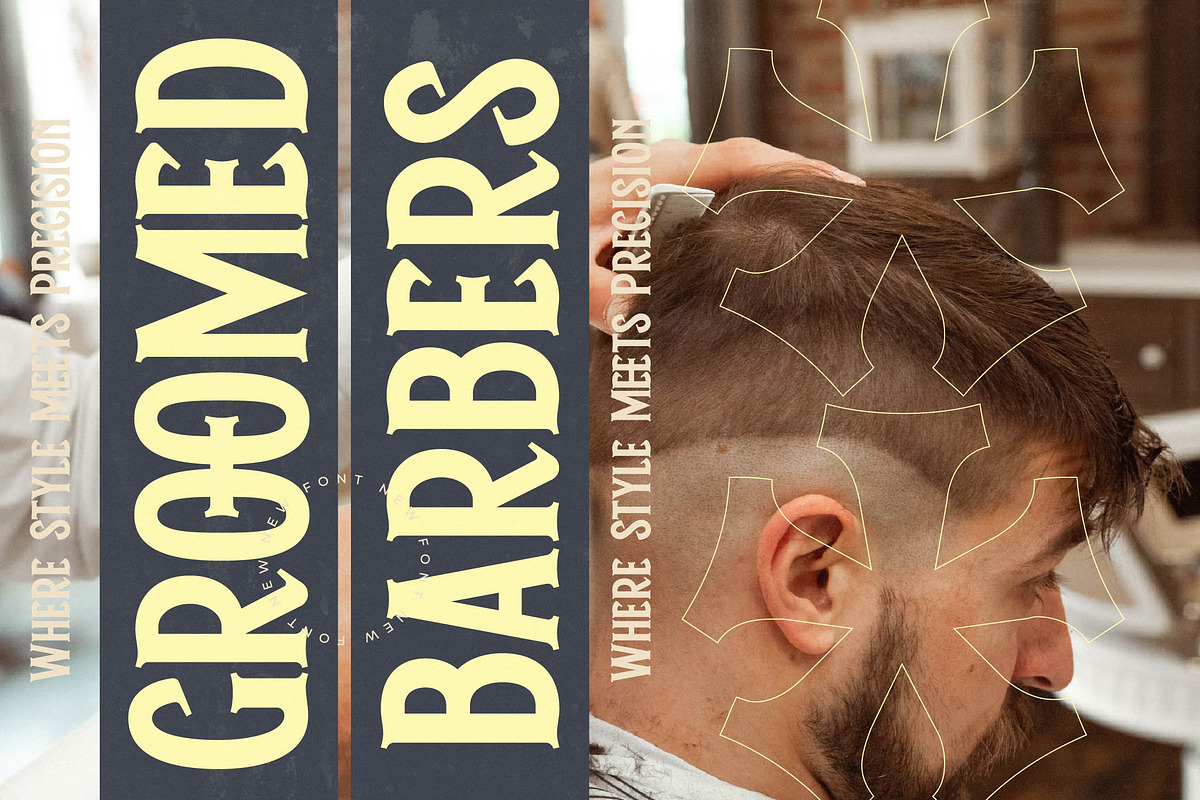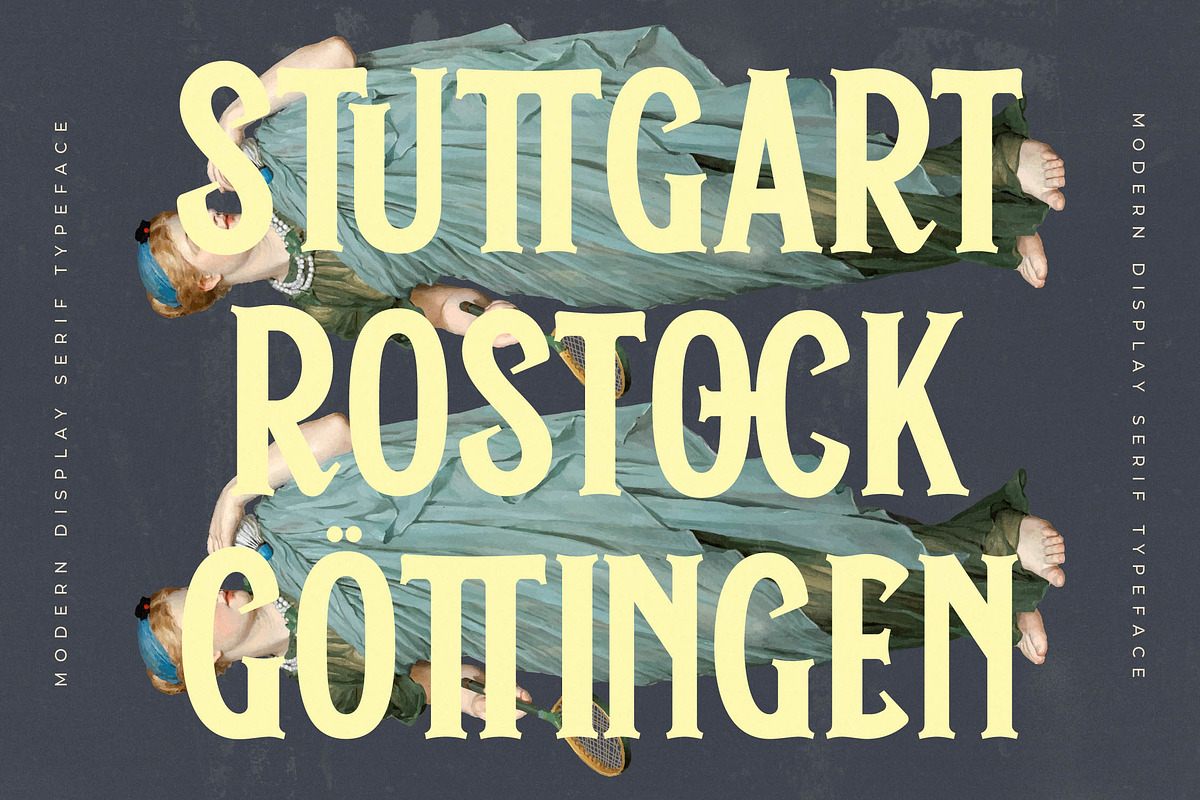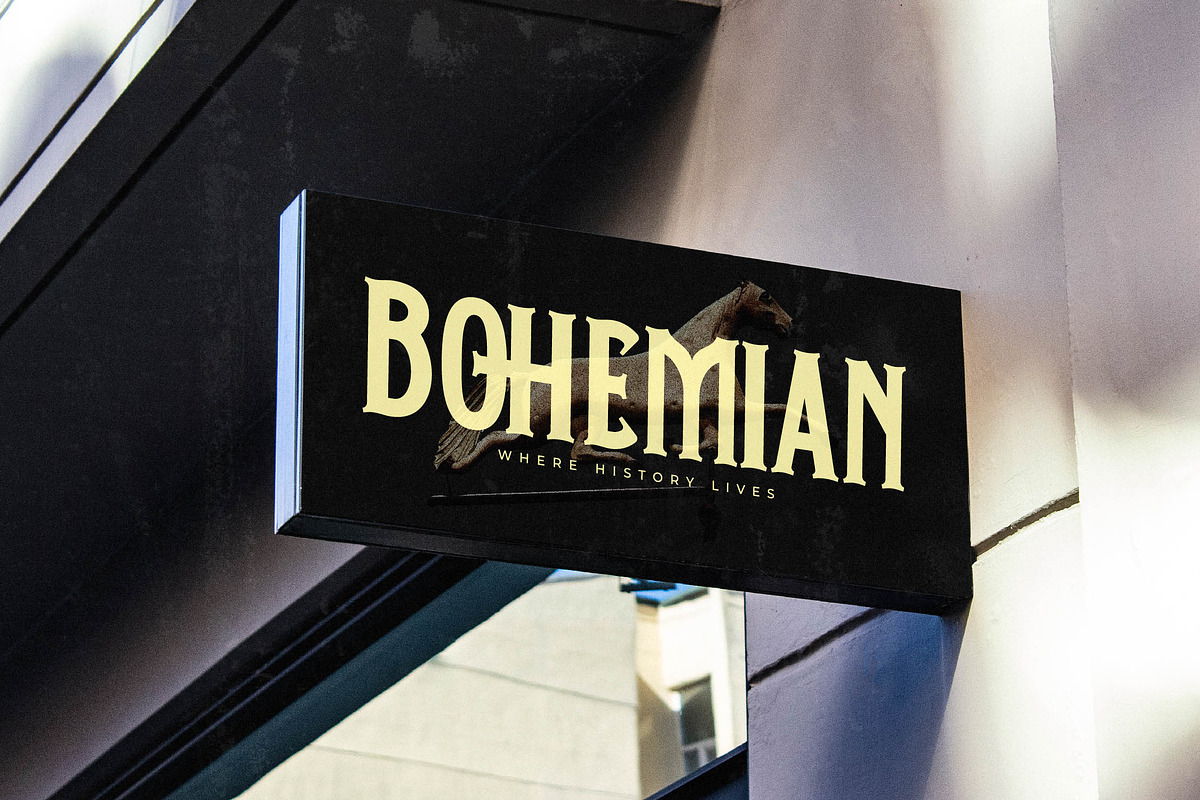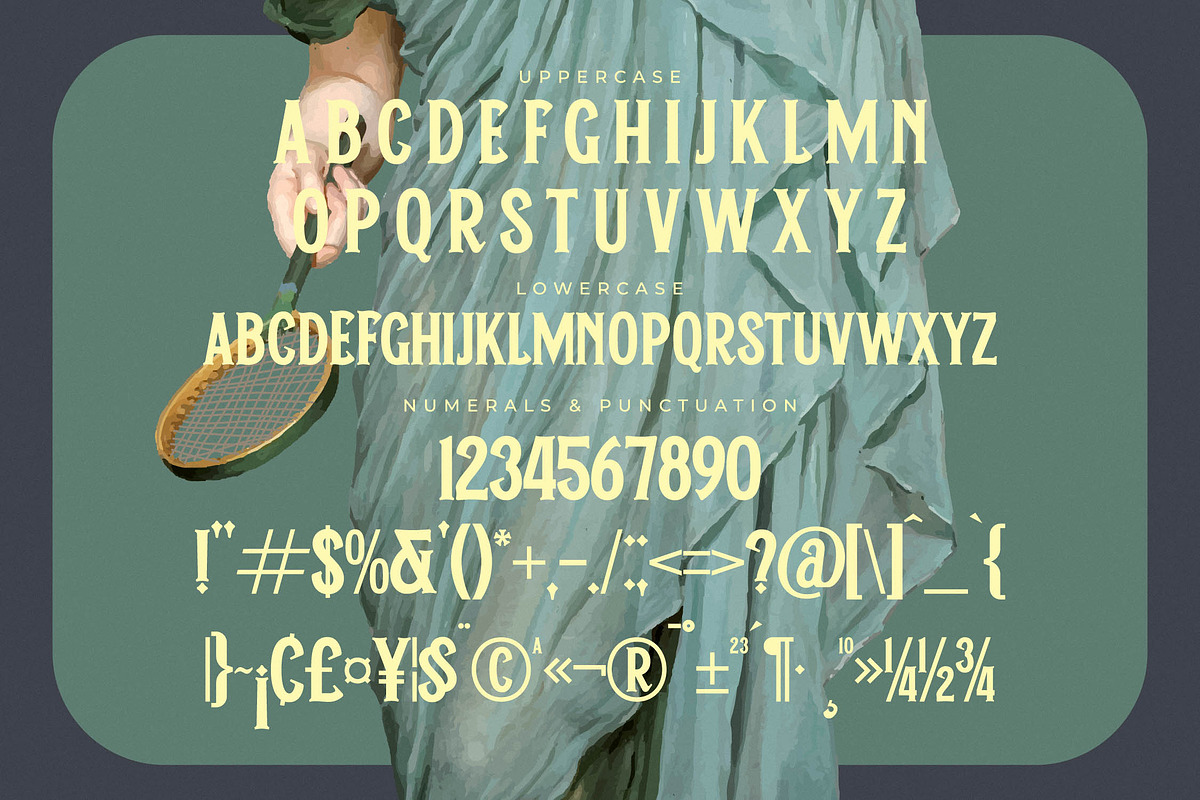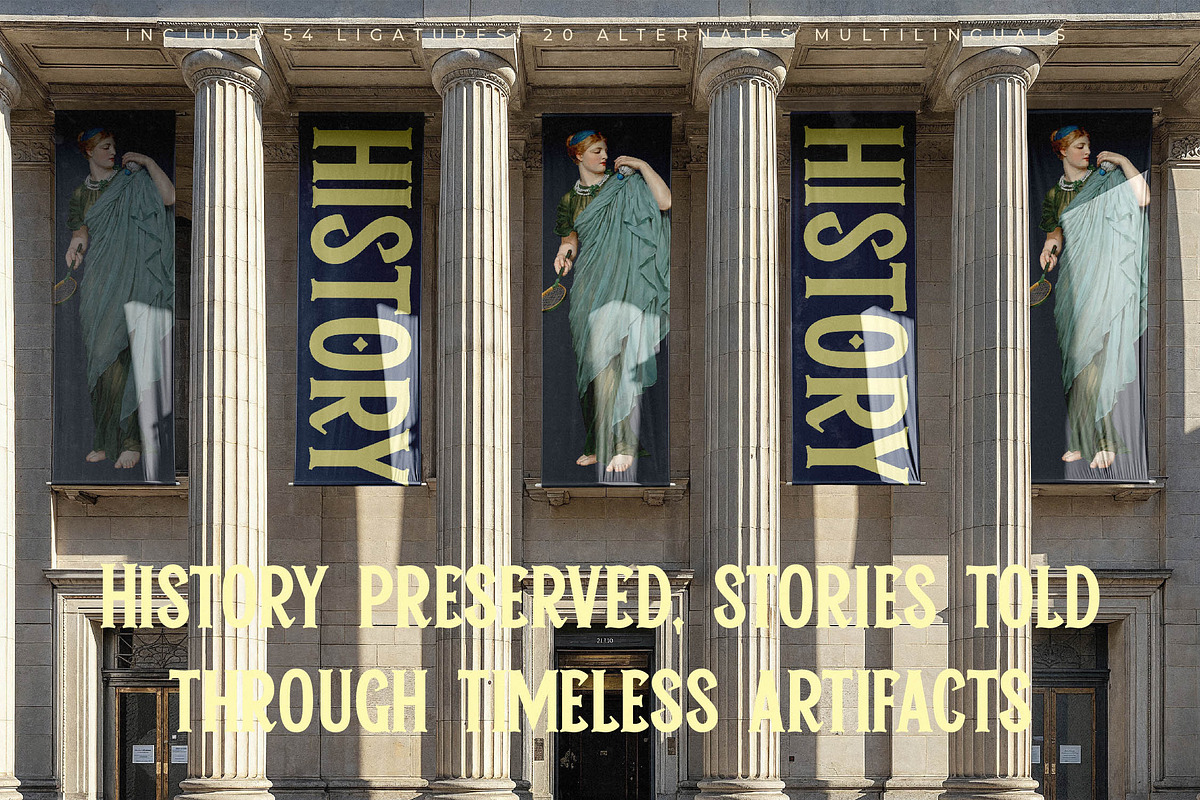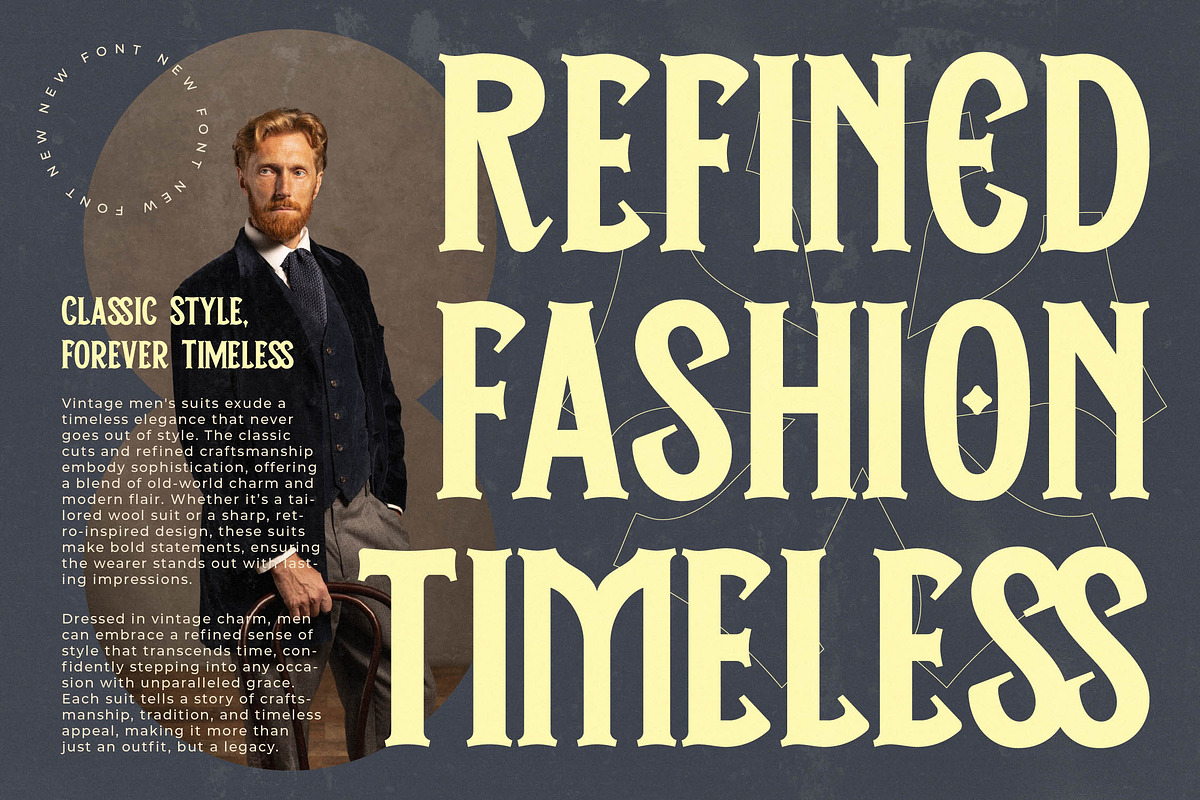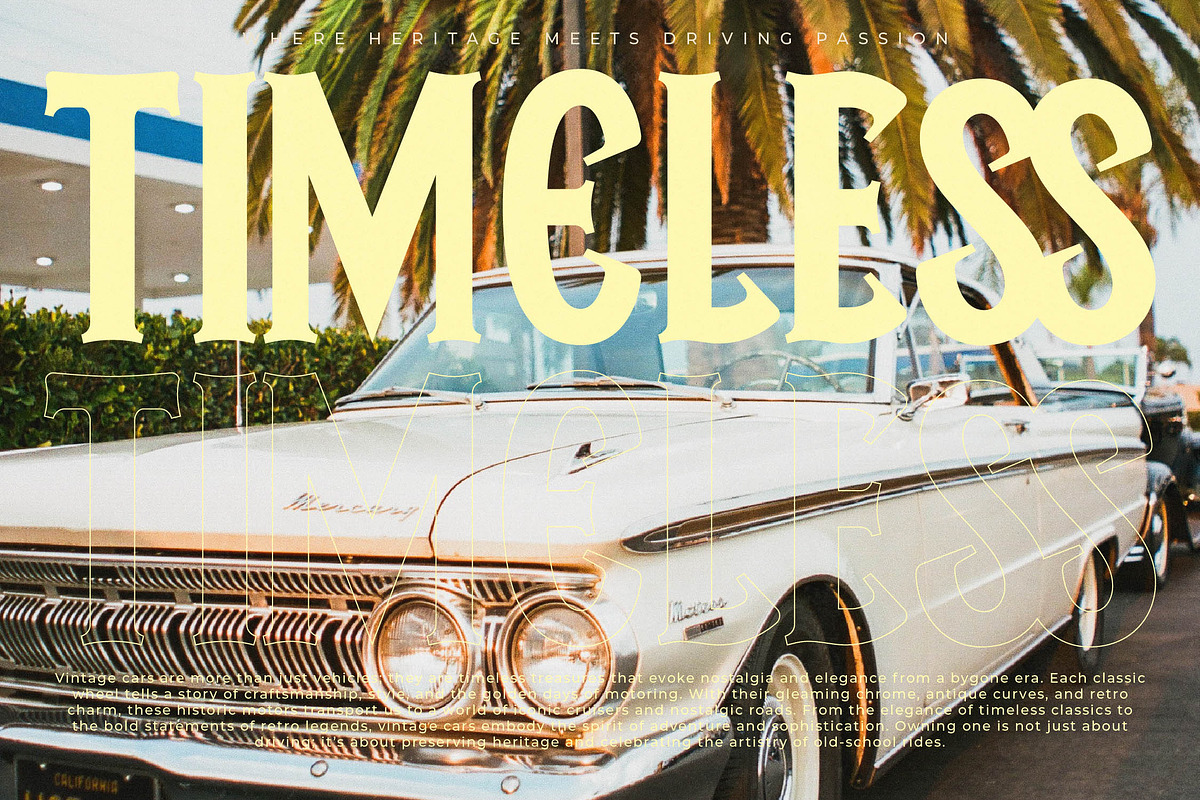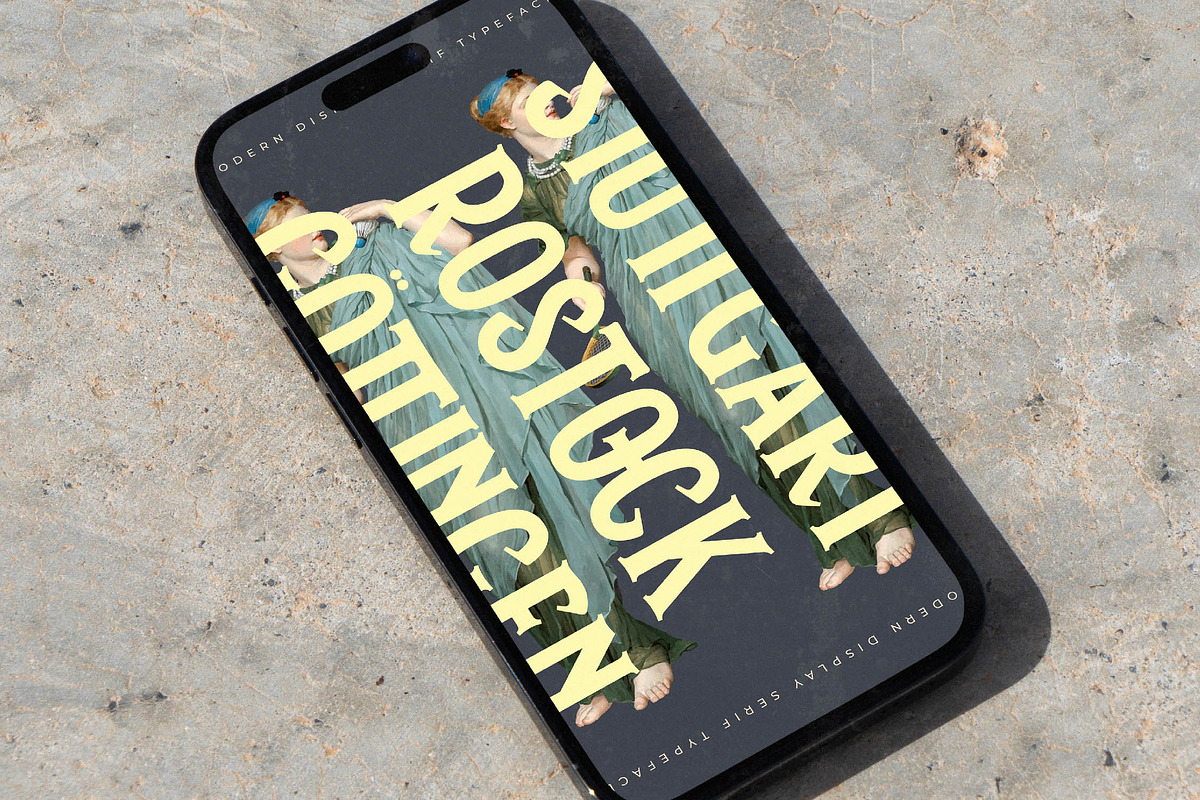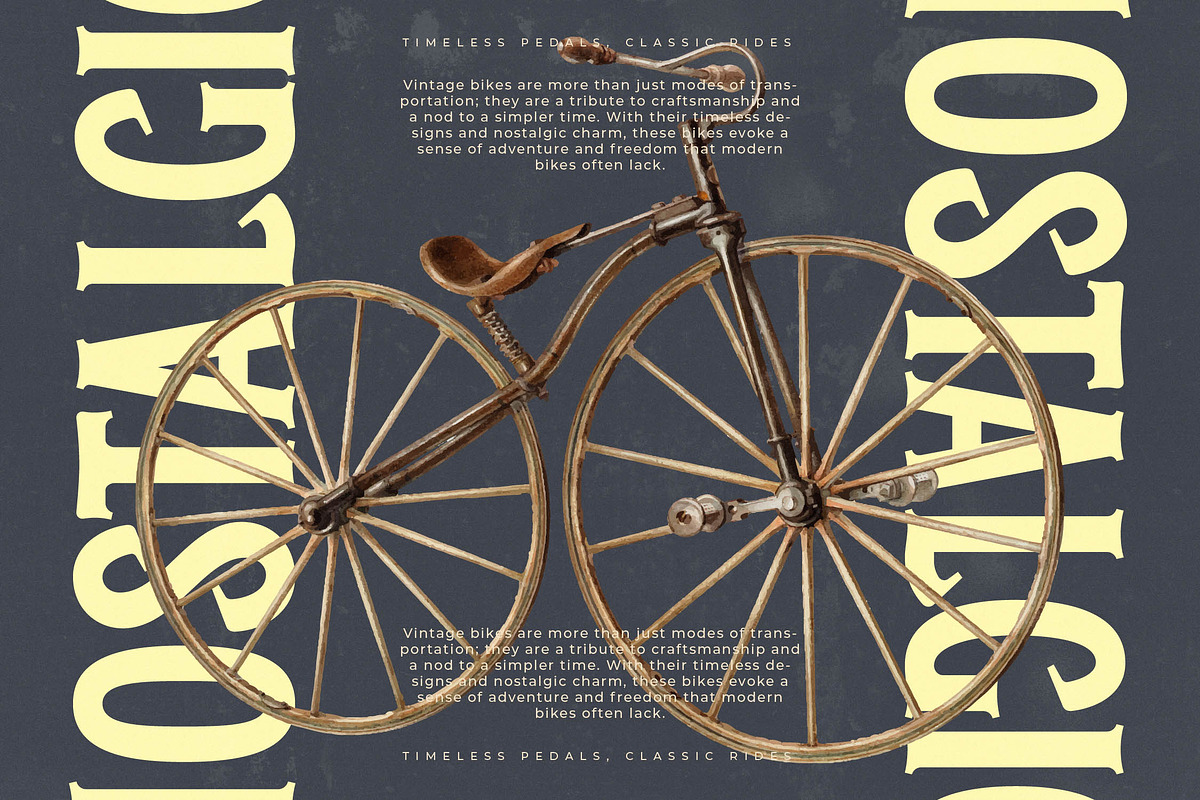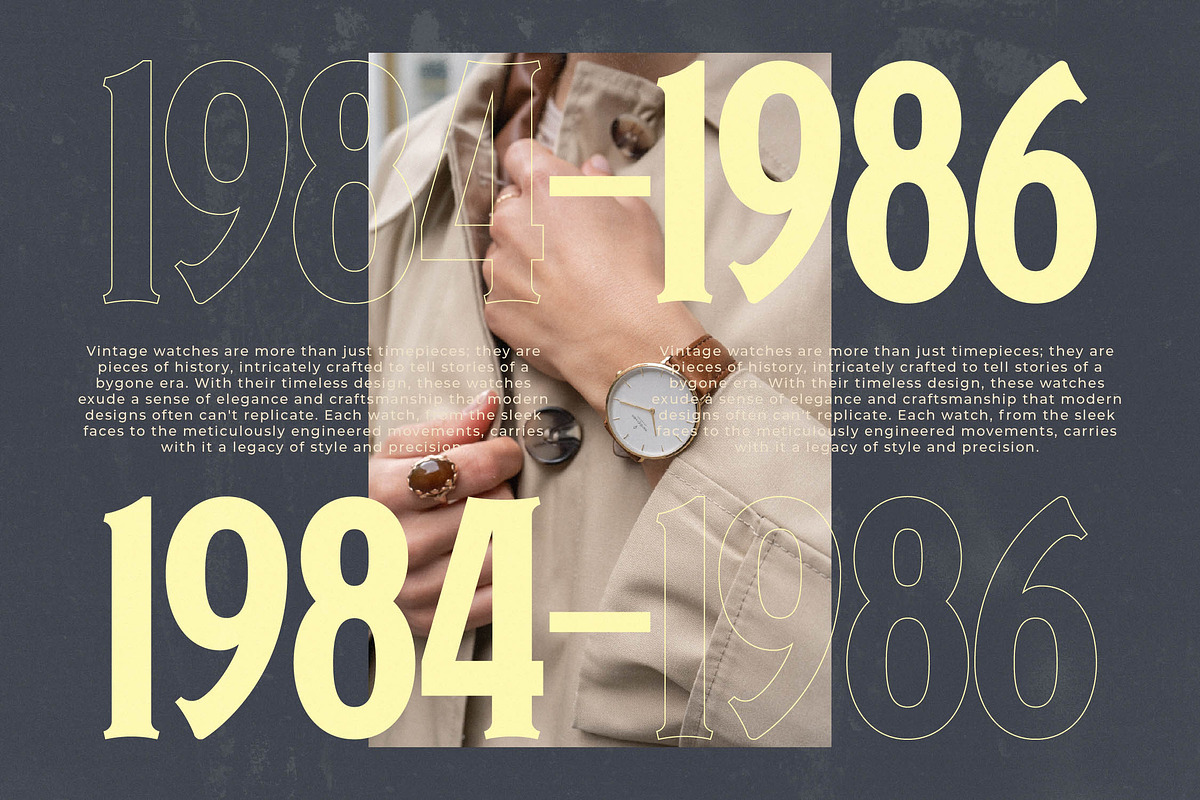
Historic Mystique Display Serif
Unveil a sense of timeless elegance and narrative depth with Historic Mystique, a font designed to captivate and command attention in any creative layout. This typeface blends the grandeur of the past with a sharp, contemporary edge, making it an essential tool for designers seeking to weave stories through their typography.
Inspired by the ornate aesthetic of Victorian-era signage and the fluid lines of classical art, this font evokes an atmosphere of refined mystery and archival beauty. Every stroke reflects a carefully balanced heritage, drawing from the hand-drawn quality of ancient manuscripts and the bold confidence of historic storefronts.
With its striking silhouettes and graceful curves, this modern serif display offers an unparalleled luxury typography experience that exudes sophistication. The high-contrast serif design ensures a massive branding impact, providing a unique editorial font choice for those who want their message to stand out with poise and authority.
Embracing the current modern serif trend, this typeface aligns perfectly with the shift towards character-driven typography in high-end design spheres. It meets the demand for editorial display fonts that offer both nostalgia and a forward-thinking aesthetic, ensuring your projects remain at the forefront of visual style.
This versatile typeface is the perfect choice for high-impact logo design and comprehensive branding identities that require a touch of historical class. From exquisite packaging and high-fashion editorial spreads to romantic wedding invitations and fashion lookbooks, its expressive nature elevates every medium it touches.
This professional package includes a vast library of unique ligatures and stylistic alternates to provide endless customization options for your compositions. With over 400 glyphs in total, the font features full multilingual support and international characters, ensuring your creative vision reaches a global audience with ease.
- Ligature 54 Alternate 20